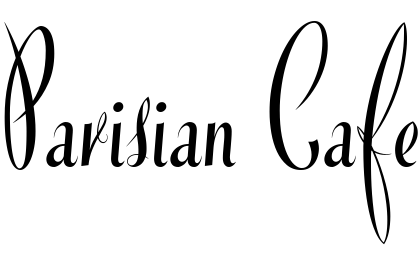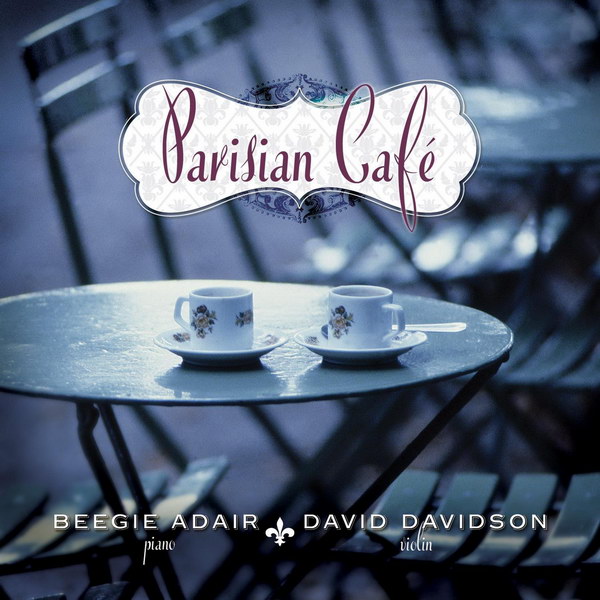
Parisian Cafe Font
Fonts in UseParisian Cafe is a collaborative album between pianist Beegie Adair and violinist David Davidson. The album features jazz interpretations of classic French songs, creating a sophisticated and romantic atmosphere reminiscent of a Parisian cafe.
It's likely that Blanchard, a calligraphic font, was used on the cover. Blanchard, is a typeface that revives and extends Muriel, a metal font made by Joan Trochut-Blanchard for Fonderie Typographique Française in 1950.